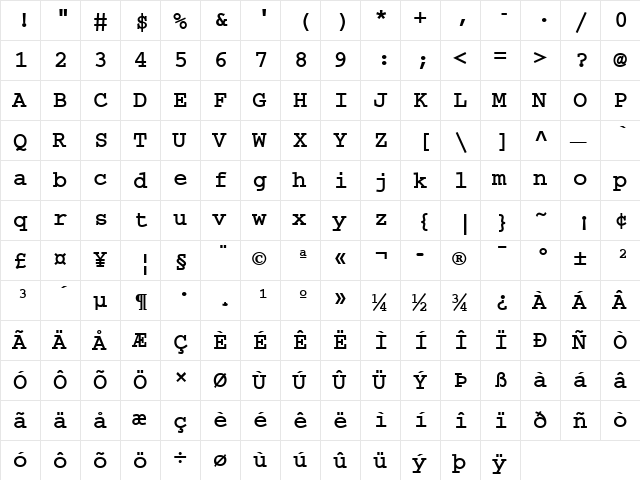
Ethiopic WashRa Bold Bold
| Designer | abass alamnehe |
Design Context for Ethiopic WashRa Bold Typeface
Ethiopic WashRa Bold is a composed and adaptable typeface that performs quietly and consistently across a wide range of design contexts. Its bold stroke weight gives it real presence on the page.
Pro Tip: Use Ethiopic WashRa Bold in both headline and body roles to test its range before committing to a single application.